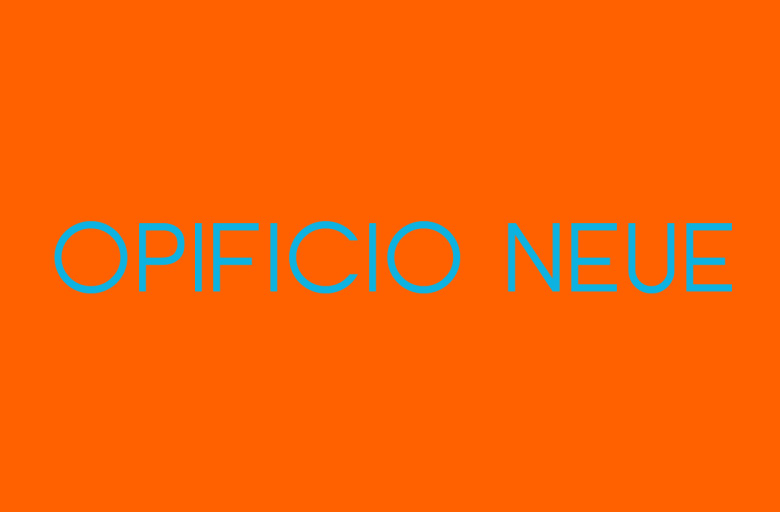
Opificio Neue Font
Optificio Neue Font is a free geometric sans serif typeface family that featuring a clean and clear texture. This font is made by Mono fonts. This font lettering style is a professional look.
Opificio Neue Sans Serif Font